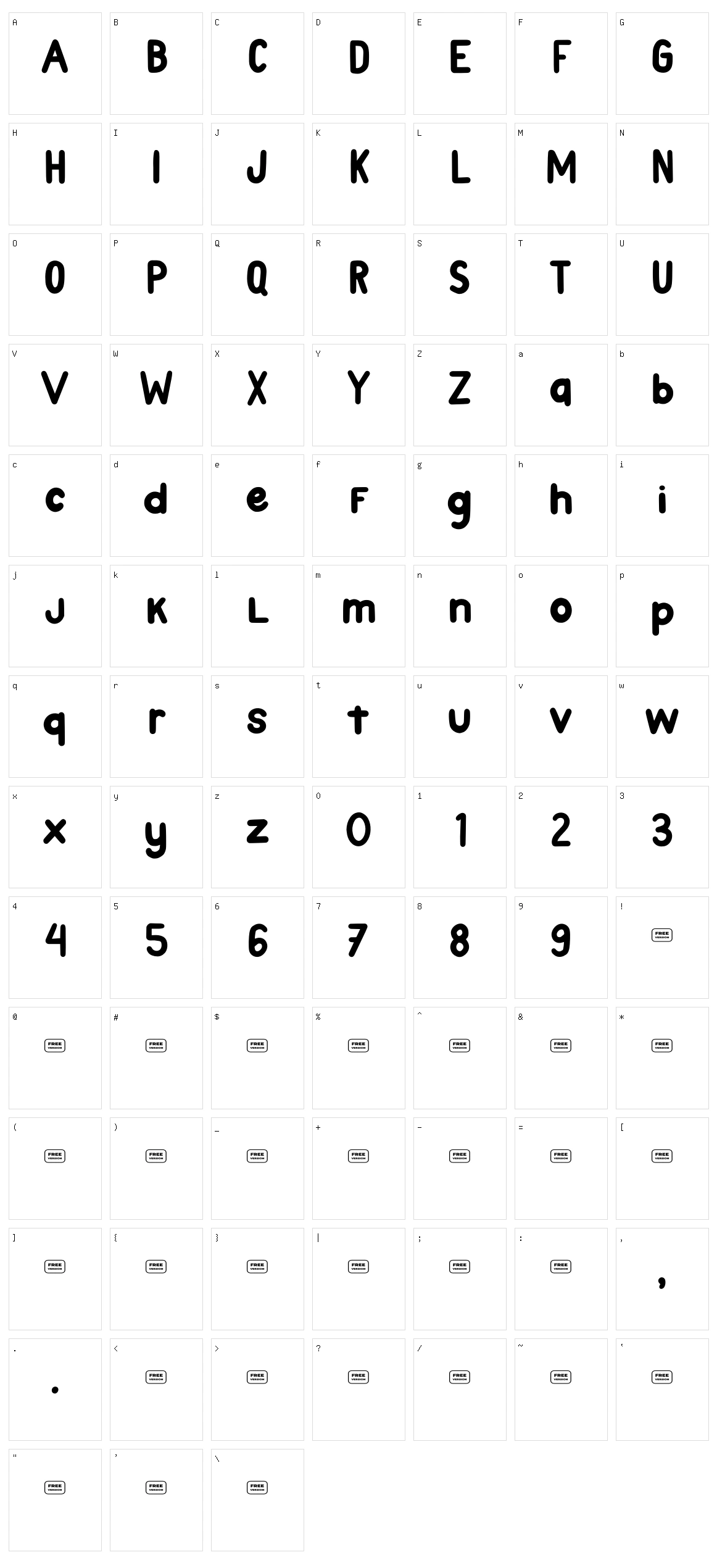
The free font Coming Sans is carefully designed by Typefactoryco, showcasing a thoughtful balance of creativity and usability and falls under the Cartoon font style. When you download the ZIP file, it contains only 104.79 KB of font files, making it lightweight and quick to download. Please review the license details below to understand permitted usage and distribution rights. If license information is not available, we recommend using this font for personal projects only or contacting the author directly for commercial usage permissions.